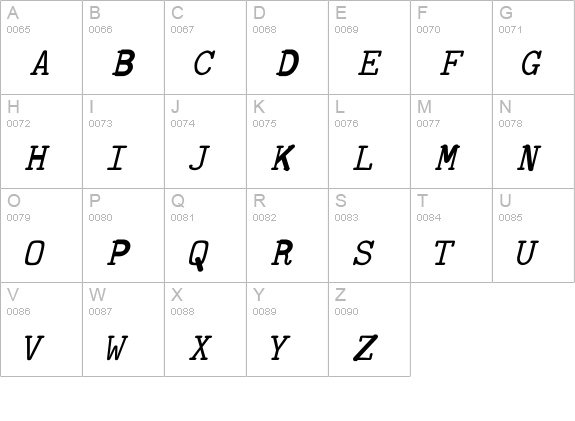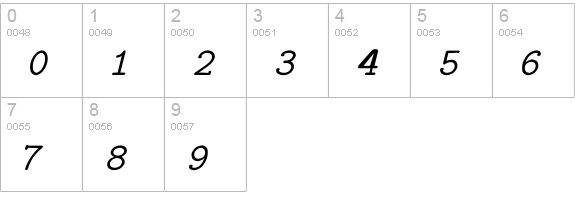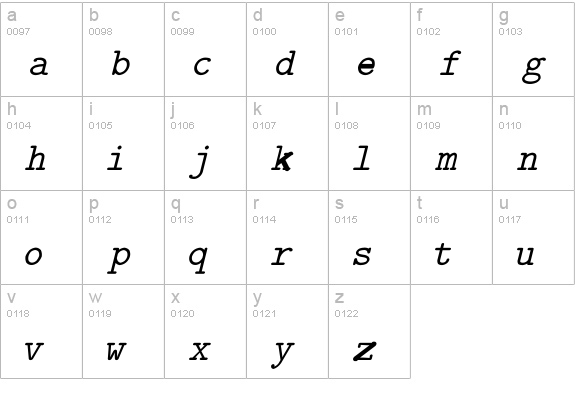
CM_TeX_Extanded Regular Font Details
CM_TeX_Extanded Regular is the standard, neutral variant in the CM_TeX_Extanded typeface family \xE2\x80\x94 well suited to general body text, paragraphs, and standard typographic work.
CM_TeX_Extended Regular font is a versatile typeface that combines classic elegance with a modern touch. Its sleek and refined design makes it perfect for a wide range of projects, from branding to editorial design. The font features clean lines and a balanced weight distribution that ensure readability in any size or format. What sets CM_TeX_Extended Regular font apart is that it is available for free download at FontsMarket.com. This means that you can easily access this high-quality typeface without any cost, making it a valuable addition to your font collection. Whether you are a designer, artist, or writer, this font offers endless possibilities for your creative endeavors. So why wait? Download CM_TeX_Extended Regular font today and elevate your designs with its sophisticated aesthetic.